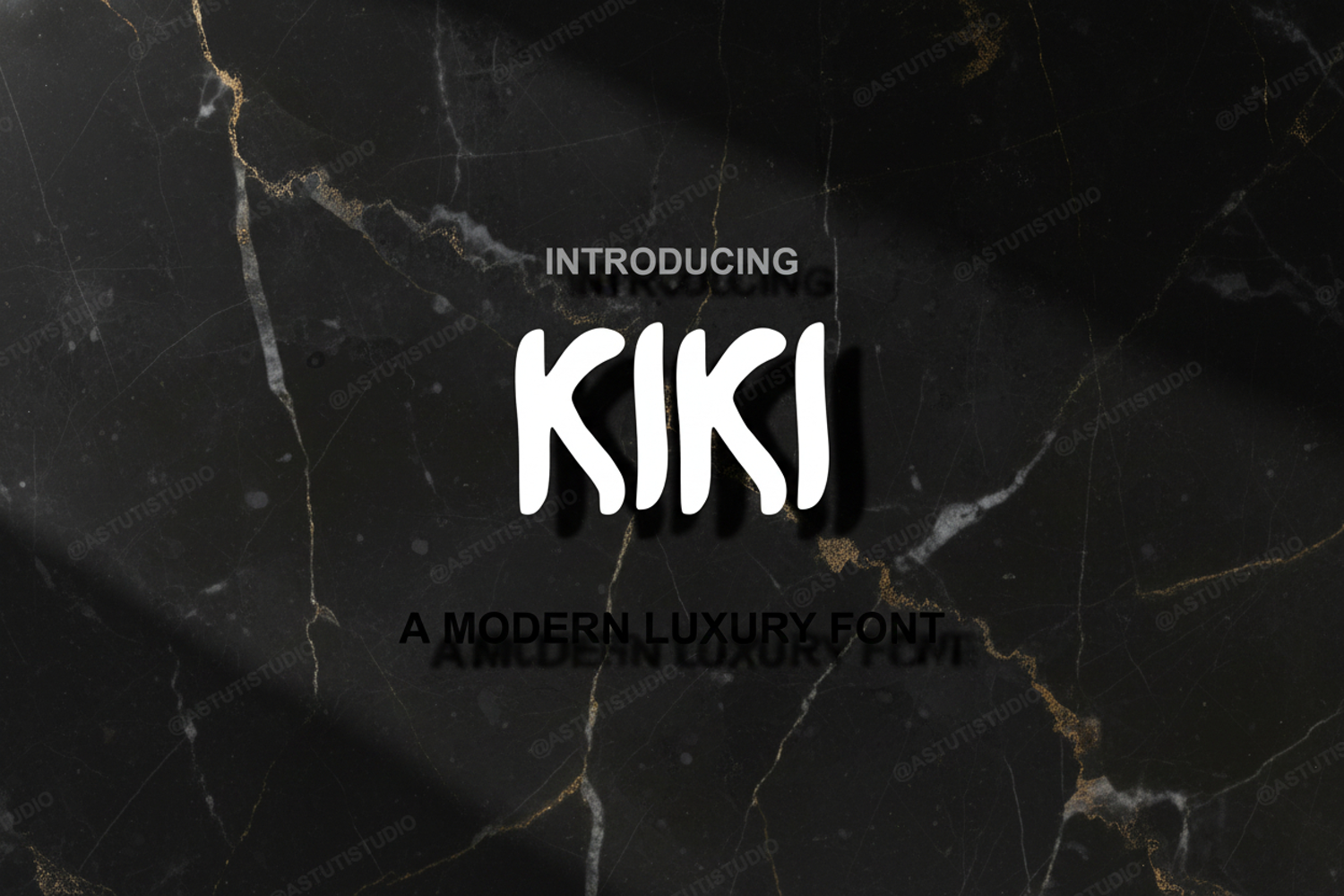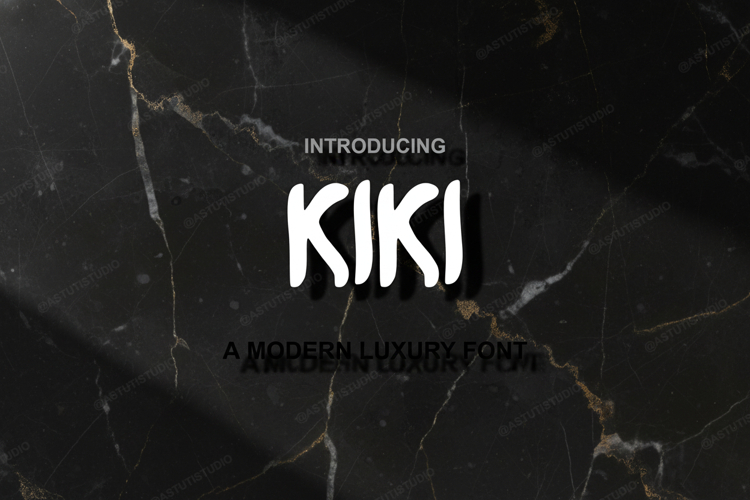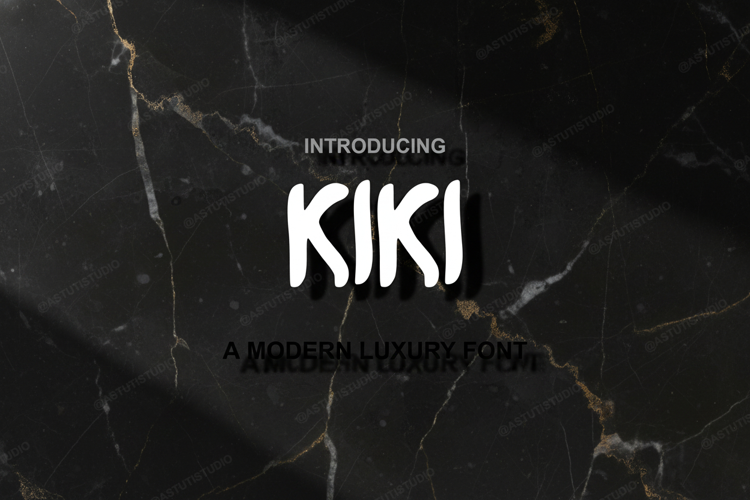
Kiki - Chic & Playful Modern Display Font
Kiki
Elevate your creative vision with Kiki, a premium hand-lettered display font that perfectly balances playful energy with modern sophistication. Crafted with meticulous attention to detail, Kiki is designed to stand out, making it an essential addition to any designer's toolkit. Whether you are working on a bold brand identity or a whimsical social media campaign, this font provides the versatility and character needed to leave a lasting impression.
- Full character set including uppercase, lowercase, numbers, and punctuation
- Branding and Identity: Create memorable logos and brand marks that resonate with your audience.
- Social Media Graphics: Perfect for eye-catching Instagram quotes, Pinterest pins, and YouTube thumbnails.
- Packaging Design: Add a touch of personality to product labels, boxes, and tags.
- Wedding and Event Stationery: Ideal for modern invitations, menus, and place cards.
- Apparel and Merchandise: Enhance t-shirts, tote bags, and lifestyle products with a unique hand-drawn feel.